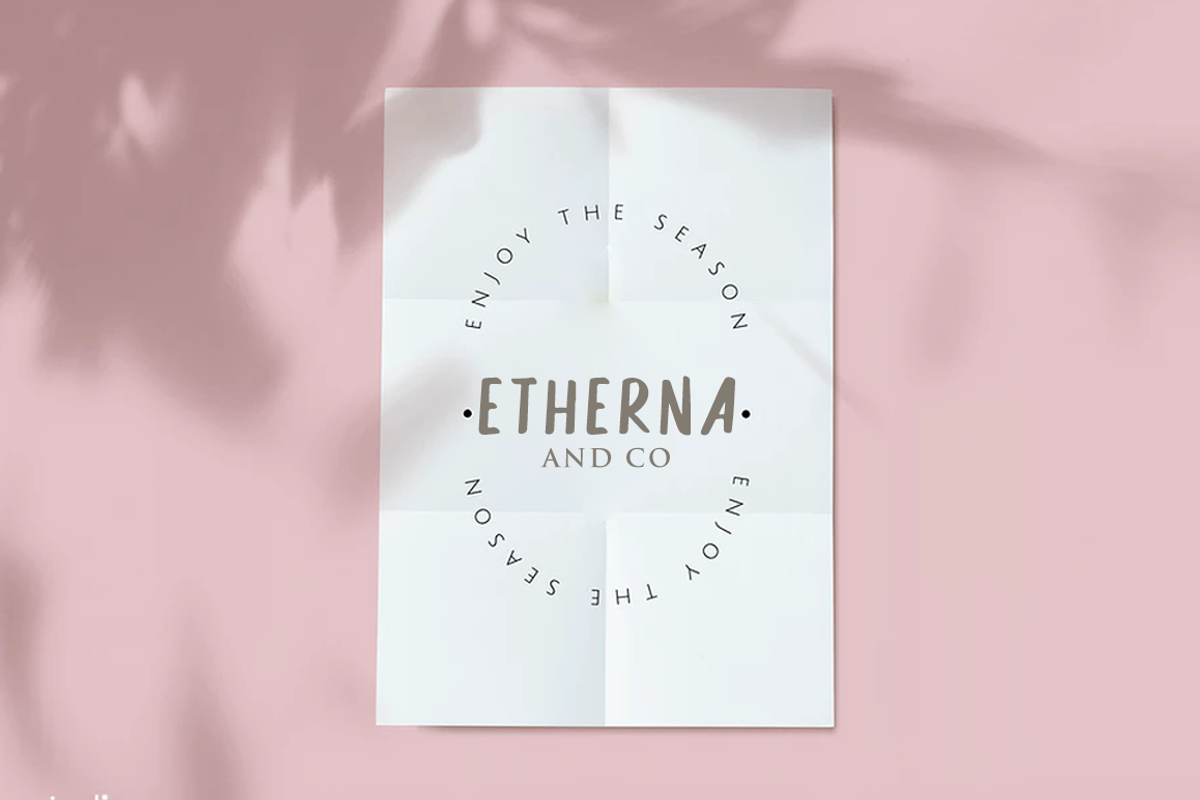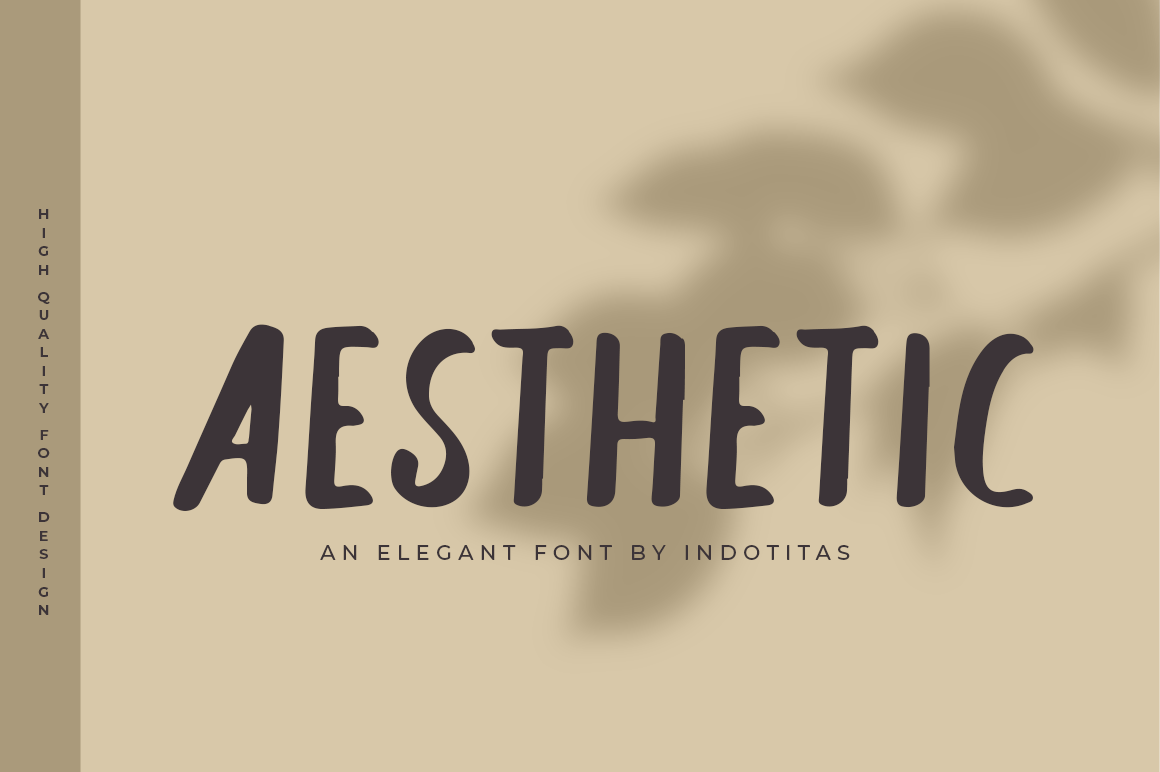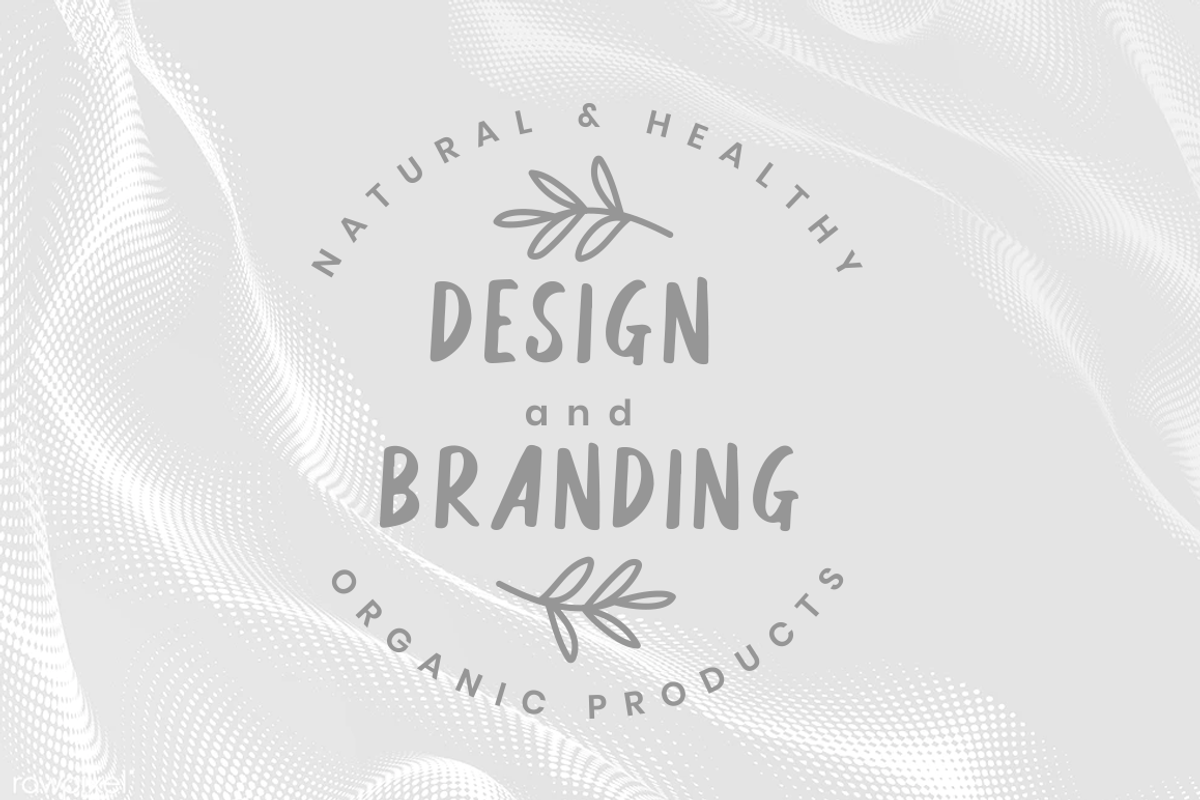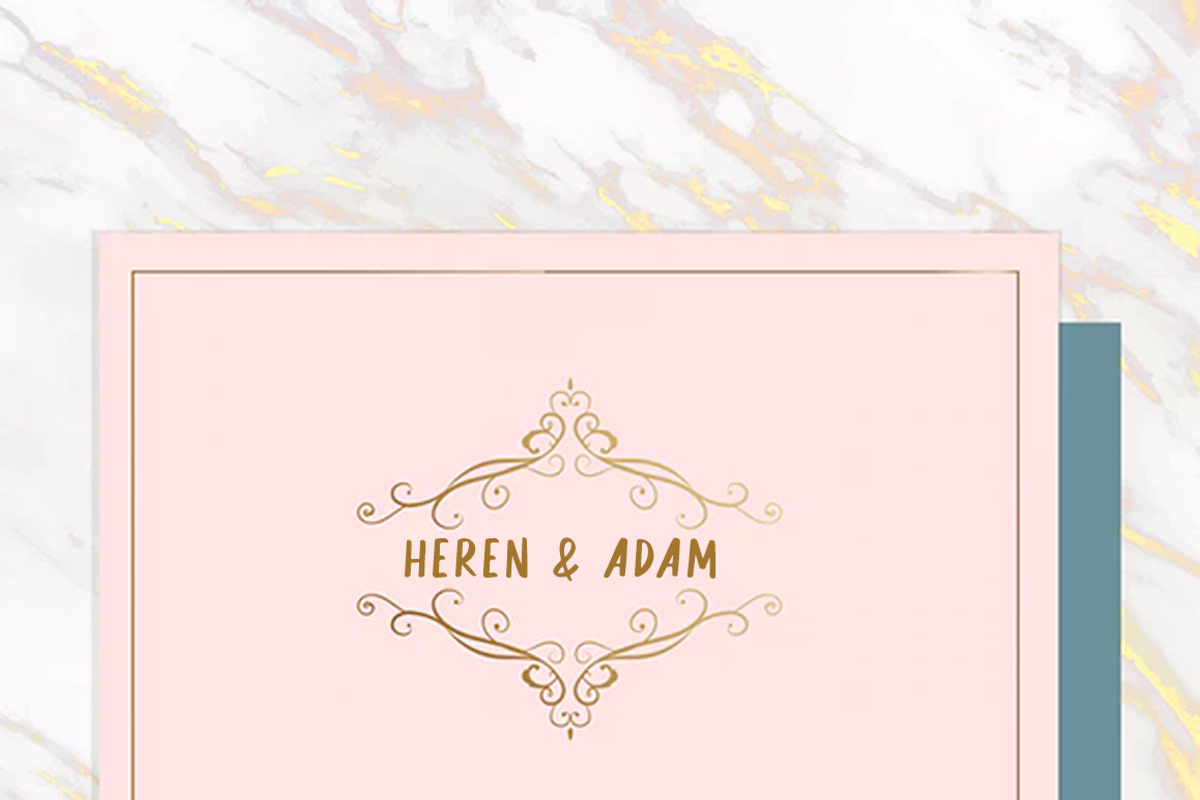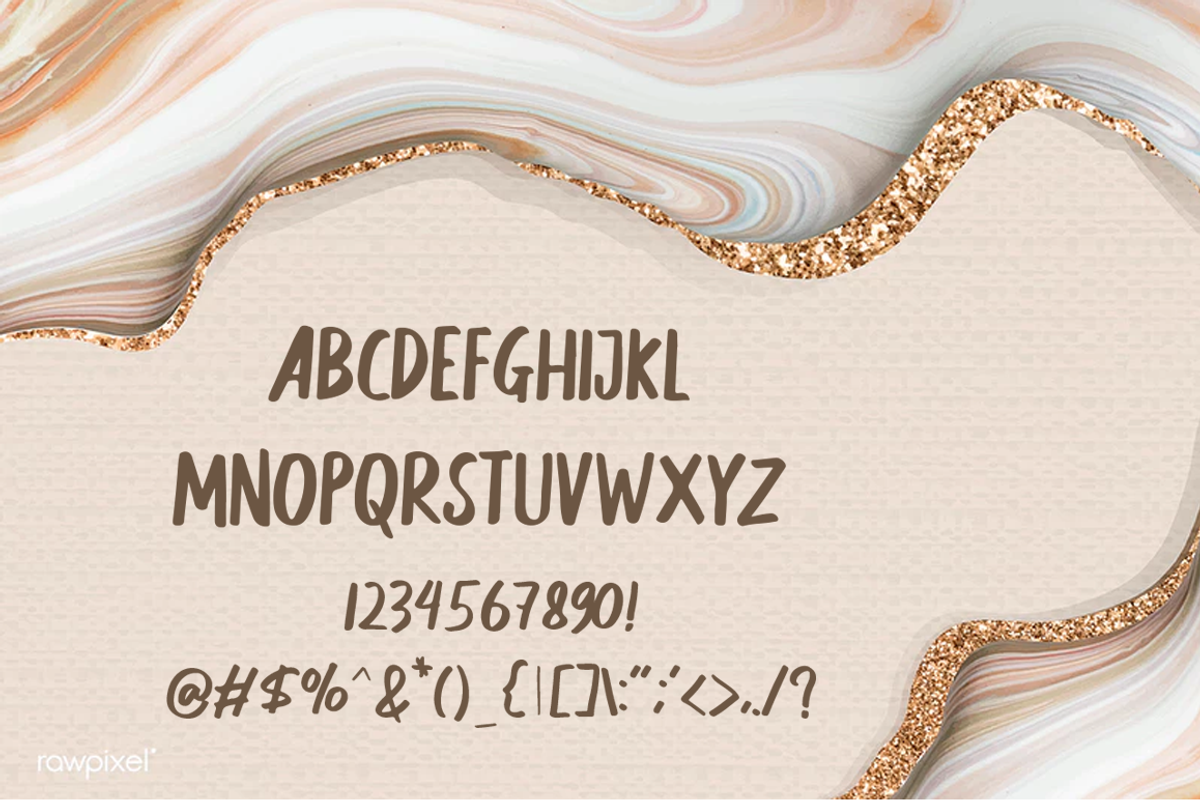
Aesthetic Font
Aesthetic Font is cheerful handmade brush font, with a bold weight perfect for adding some romance and charm to your designs. This script functions most strongly as a display or headline font. suitable for logo, logotype, branding, fashion, label, book cover, t-shirt, instagram post, and other